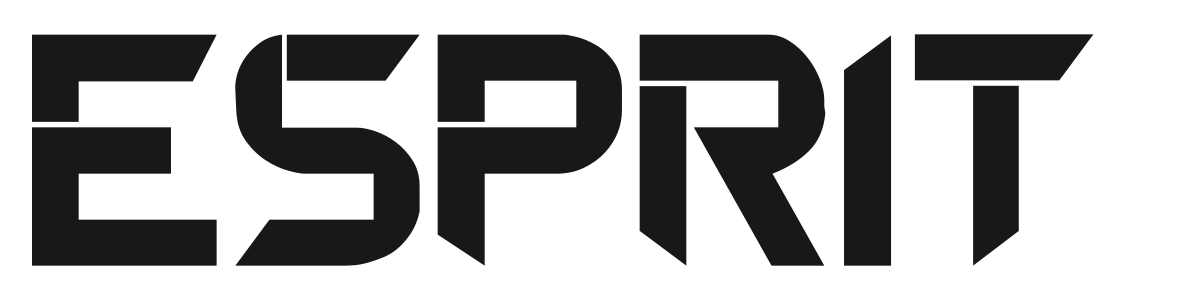
Esprit
Esprit is a bold modular techno display font built from angular, rectangular segments that give every character a mechanical, almost stenciled quality. The heavy weight and squared-off construction make it read instantly at large sizes, with a sci-fi edge that suits gaming and entertainment contexts. There's an aggressive geometry here that stops short of unreadable, keeping it functional as a headline face.